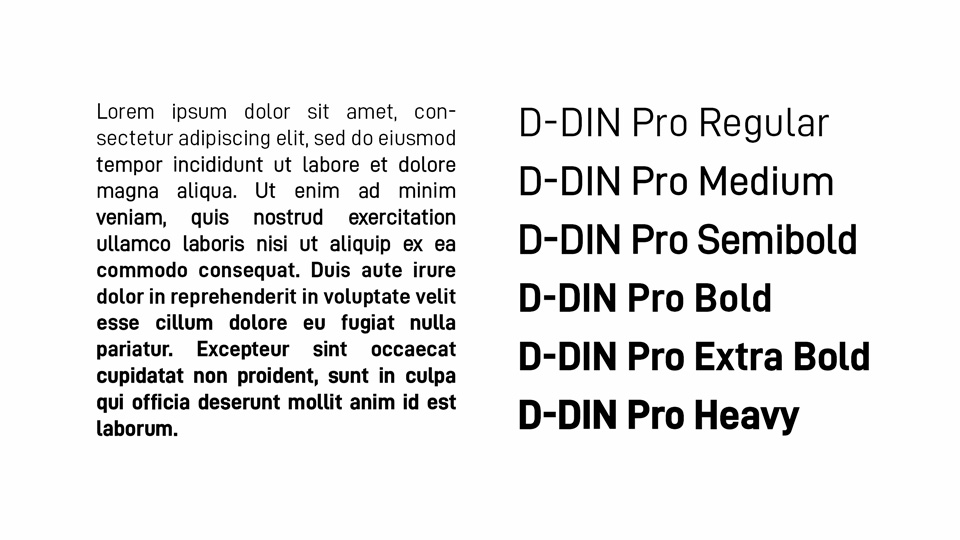
Din Family Fonts. Similar standards existed for stenciled letters. The din 1451 typeface was designed in 1936 for road and railway signage.
Both typefaces were designed for the urw signus system and were mainly used for the production of traffic signs. Available for digital ad use. Din font family is an original unique typeface.
This Was Released With Only Regular Style In 2014, Manvel Schmavonyan Added These Current 4 Styles To This Typeface.
The Din 1451 Typeface Was Designed In 1936 For Road And Railway Signage.
It remained in use for german number plates until 2000. Both typefaces were designed for the urw signus system and were mainly used for the production of traffic signs. Ideal to fulfil a variety of designing operations.
From The 1990S Onwards, More Refined Versions Became Available For Use In Book And Magazine Typography.